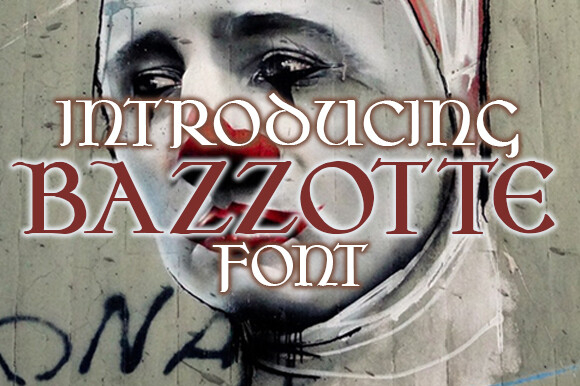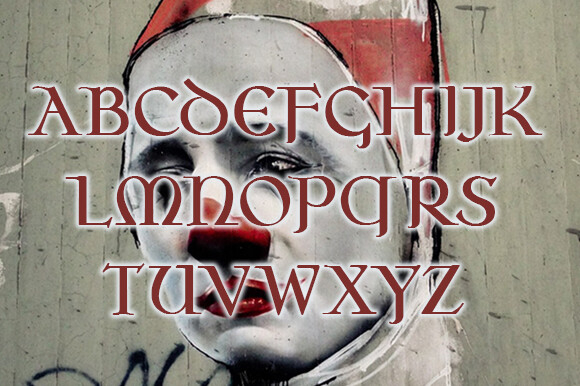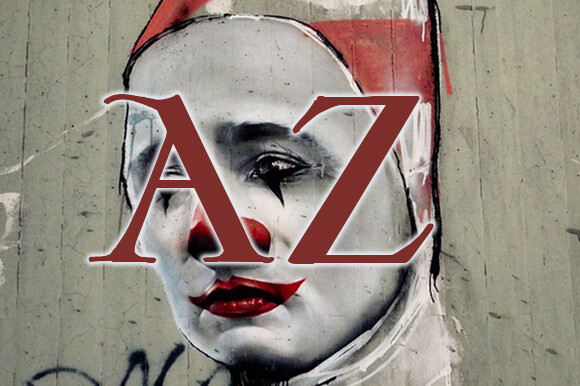
Bazzotte Font
About Bazzotte Font
Bazzotte is a stylish Gothic typeface that will look awesome on any of your designs. Use this font on posters, flyers, and t-shirts.